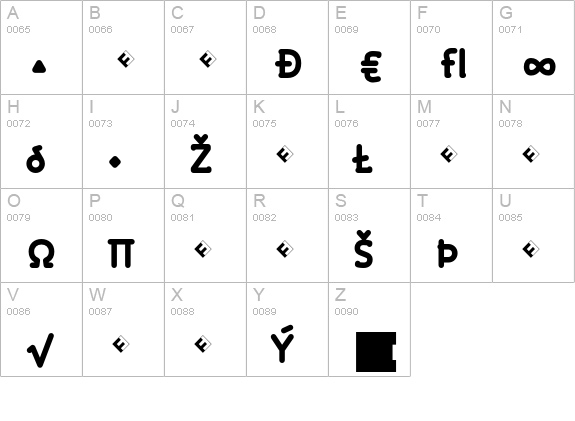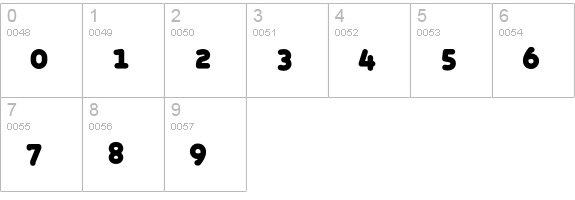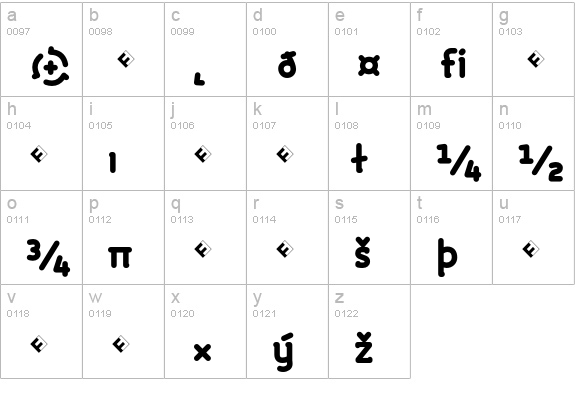
Roice-BlackExpert Font Details
Roice-BlackExpert font is a modern and sleek typeface that exudes sophistication and elegance. Its bold and sharp letterforms make it perfect for creating eye-catching headlines and titles. The font's unique design gives a sense of professionalism and authority, making it ideal for use in branding, advertising, and editorial projects. What sets Roice-BlackExpert font apart is its versatility and readability, making it suitable for a wide range of design applications. Whether you're designing a website, creating a poster, or crafting a logo, this font will help you make a lasting impression. The best part? Roice-BlackExpert font is available for free download at FontsMarket.com, allowing you to access this high-quality typeface without any cost. Don't miss this opportunity to elevate your designs with the stylish and impactful Roice-BlackExpert font.